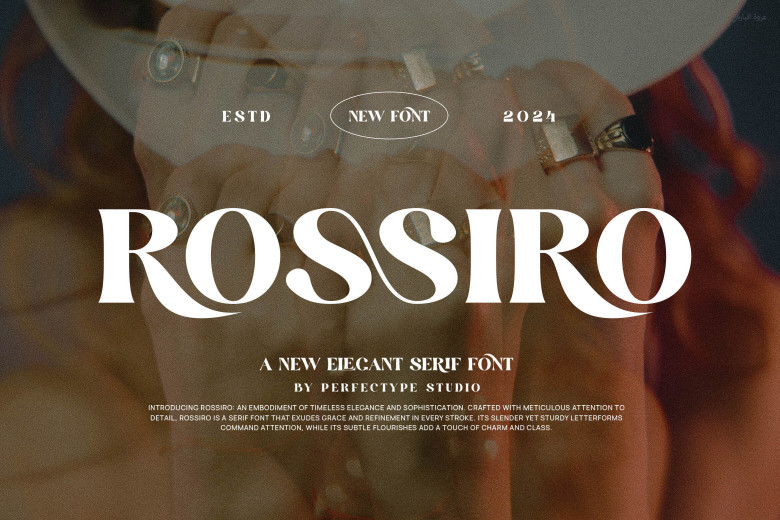
Rossiro Font
Rossiro Font is an insanely elegant and classy for any branding or logos. Pretty much anything creative will greatly benefit from using Magma Wave. It’s the elegant luxury-serif-style serif font best suited for all your design projects. Included many beautiful and unique ligatures that will give your logo and design a stunning look.
Obviously, this font is very good for different needs to be user friendly because such as branding, logos or social media. Also preview images that I show again this font can also be made: advertisements, labels, product packaging photography wedding design watermark invitation product designs stationery and any project whatsoever at a reasonable price_ GRANTED readability level. Acceptable Reading Level.
Rossiro Serif Font